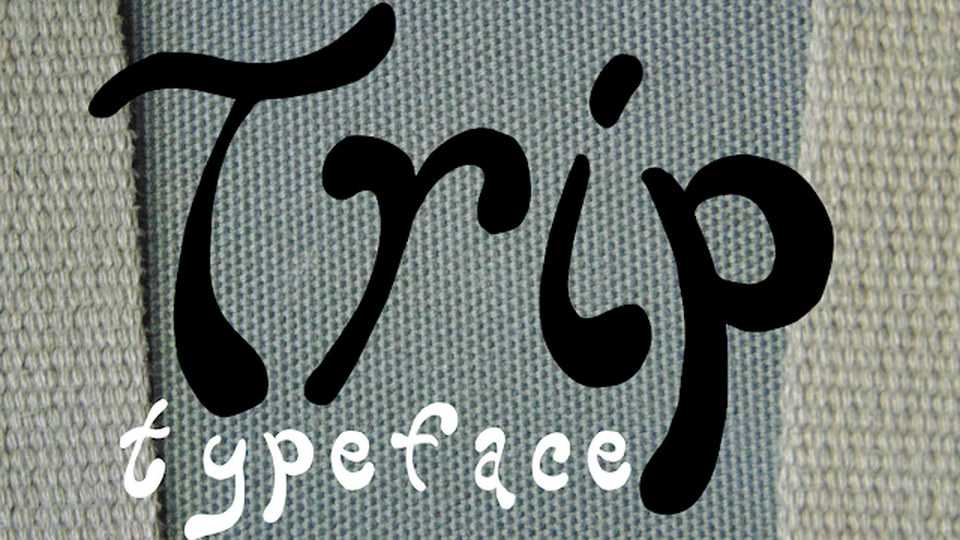
Download PVF Trip font, a handwritten decorative typeface with a playful look. PVF Trip font is suitable for notes, quotes and other craft projects.
Designer: Petros Vasiadis